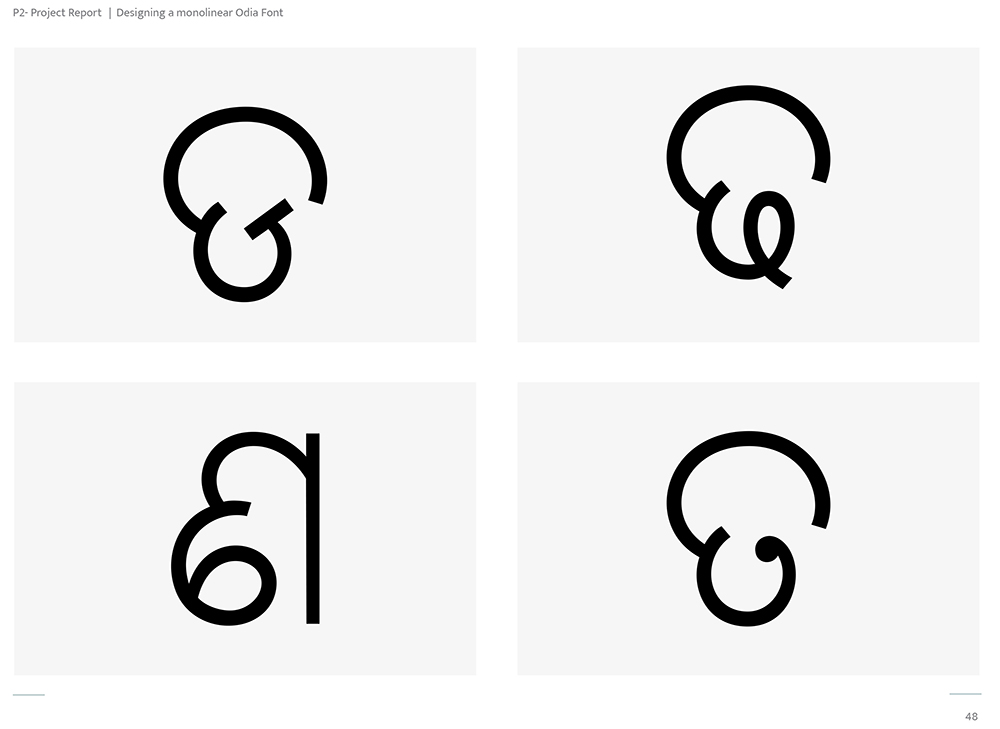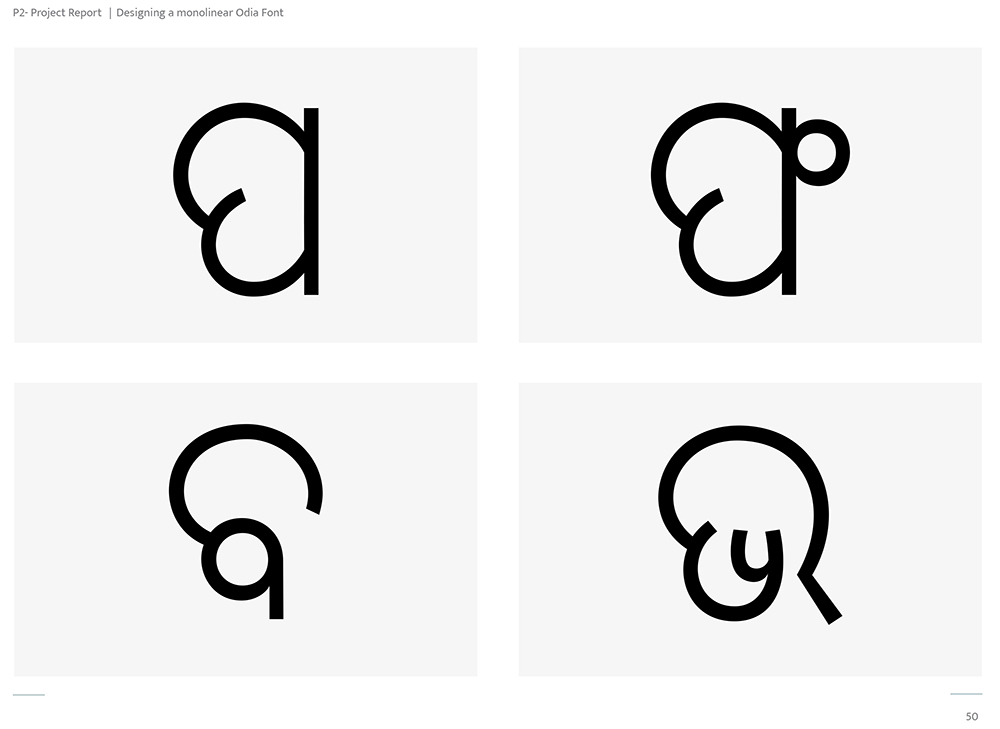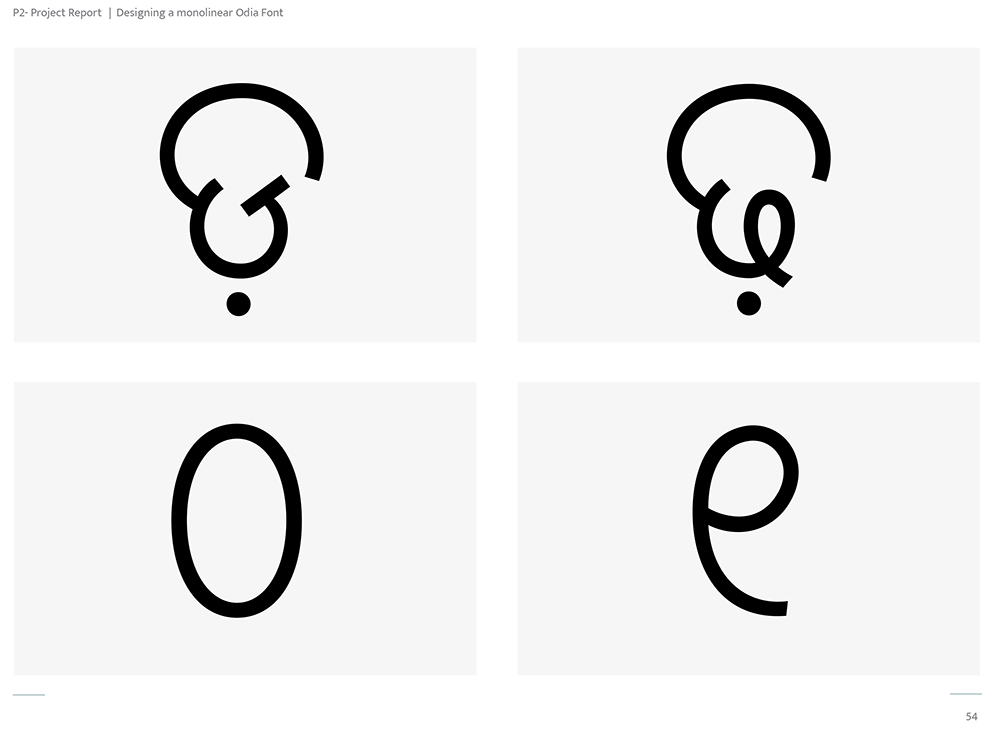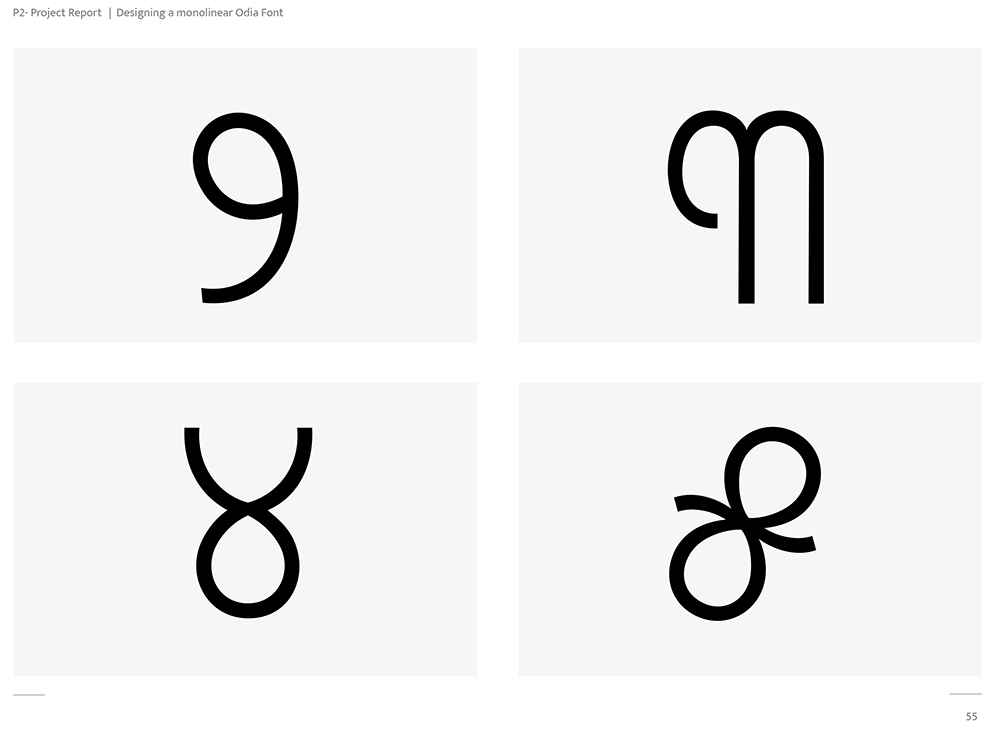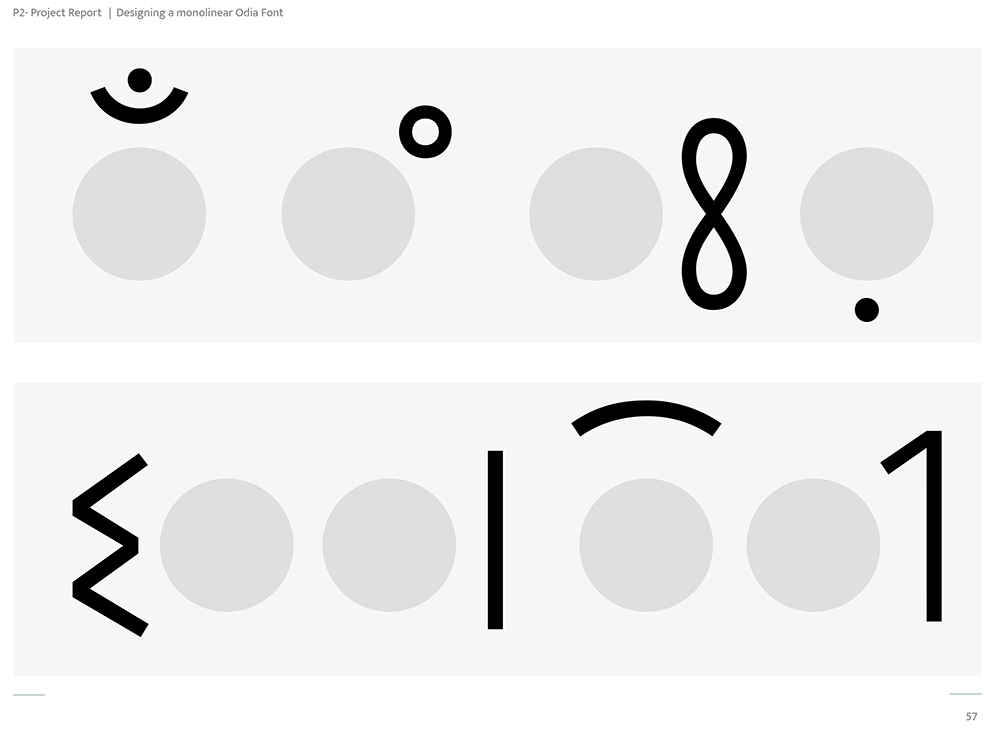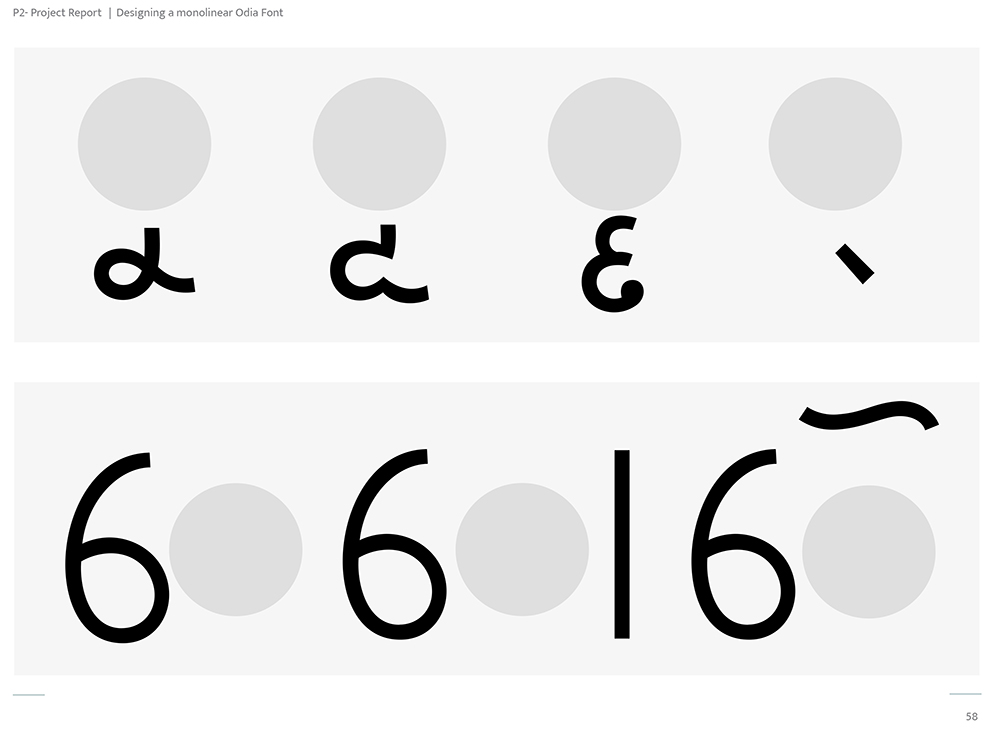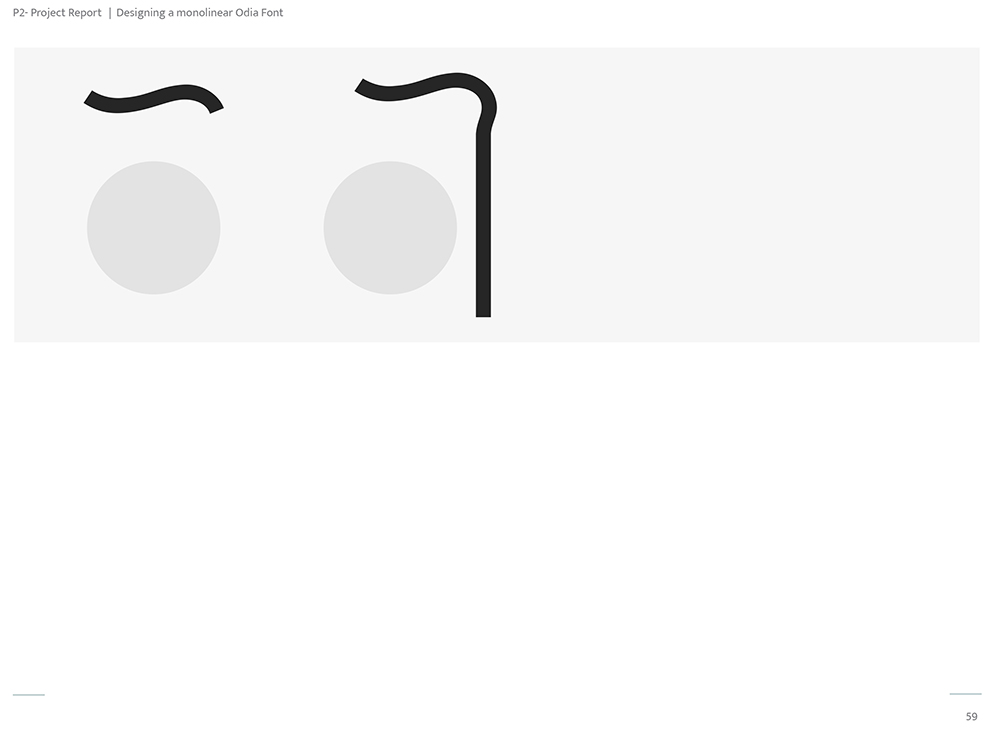
Design Case study
Designing a Monolinear Odia Font
An Aid for digital transformation
Design process that was followed in this project:
• Aim
- Learning Objectives
• Why make a new Odia Font
- Current Scenario of Digital Publications in Odia
- Growing Potential of the online Readership
• Brief History of Odia letter-form
- Evolution of Odia Script
- Overview of the Odia Script
• Variable Font
- What is a Static/Standard font
- What is a variable Font?
- The Variable Axis
- Benefits of Using a Variable Font
• Text and Display Fonts
- Display Fonts
- Text Fonts
- Characteristics of text fonts
• Choosing between ‘mono linear and ‘modulated’ typeface
• Odia fonts: Existing scenario
• Analysing existing Odia Fonts
- Comparing some existing fonts
- Grouping letters based on visual form
- Analysing the Existing grid
- Types of Joineries
- Types of Knots
• Letter Design Process
- Explorations
- Writing freehand paragraphs with different tools
- Letter drawing with broad pencil
- Outline Sketching
- Vertical Grid
- Vector Drawing (1st Draft)
- Composing names
- Final Glyphs and Sampler
• References